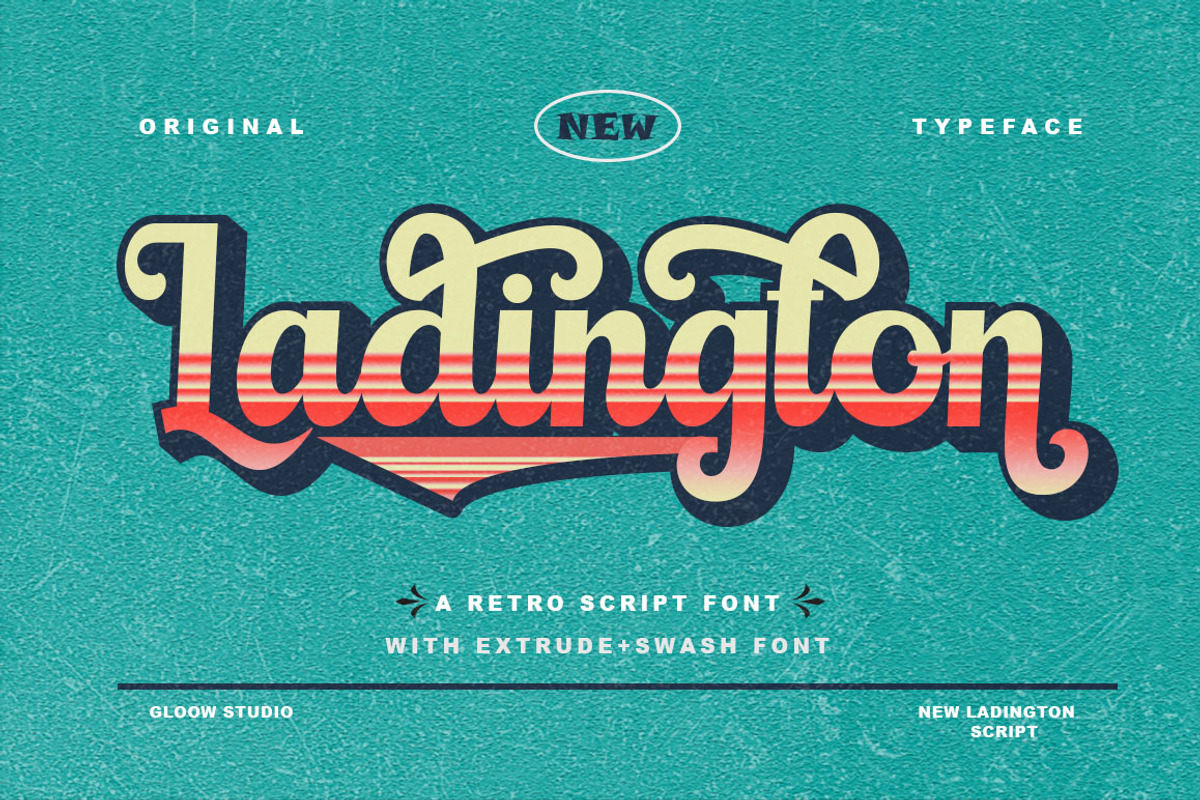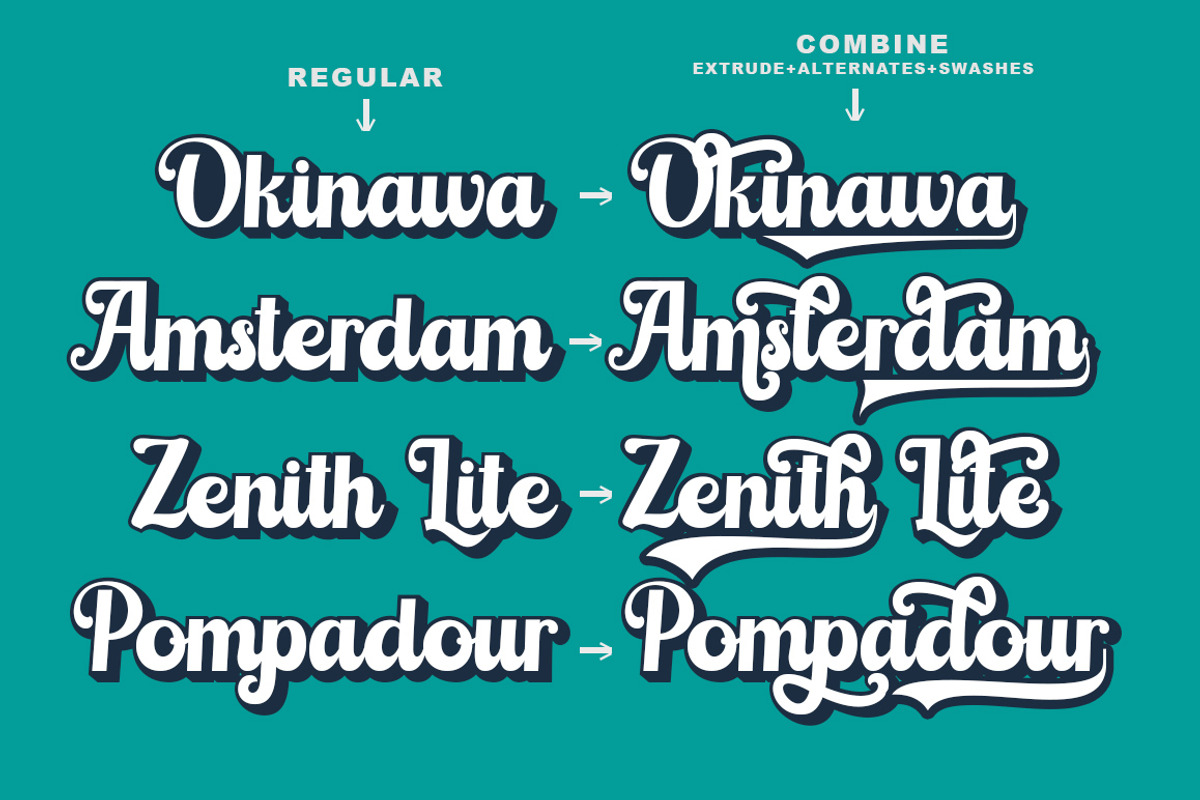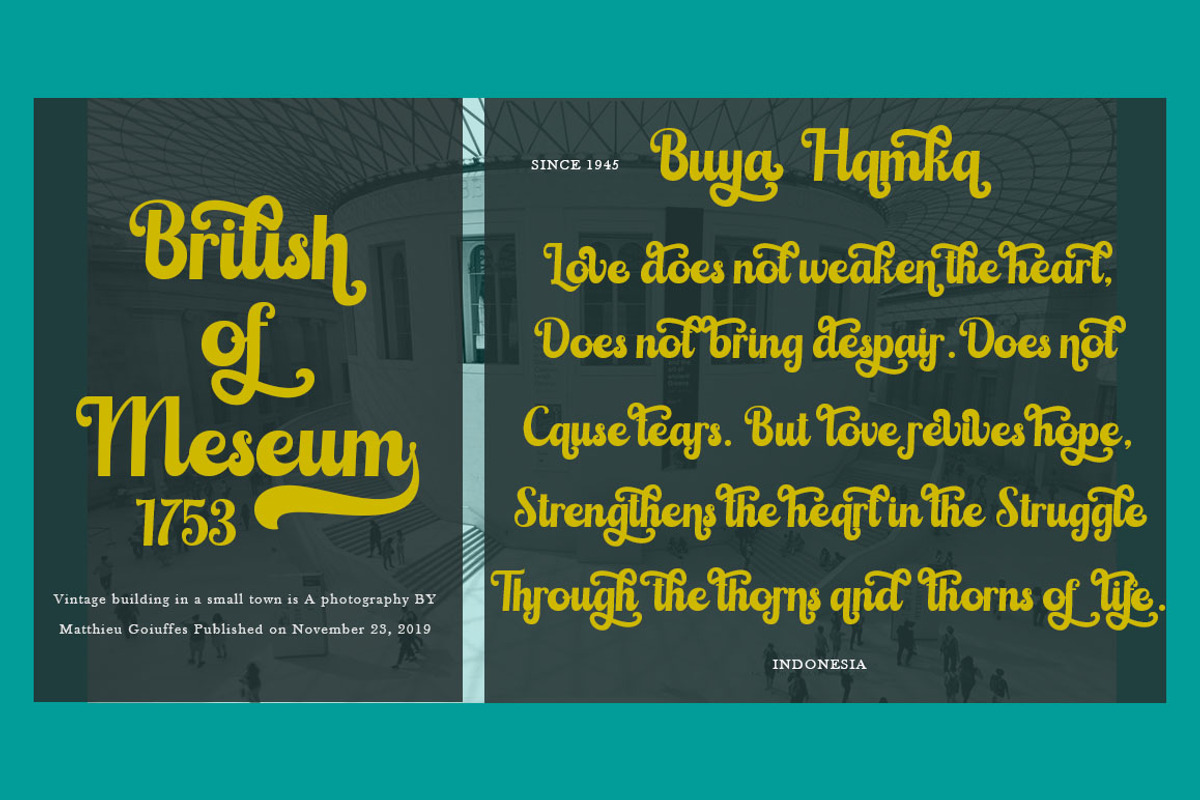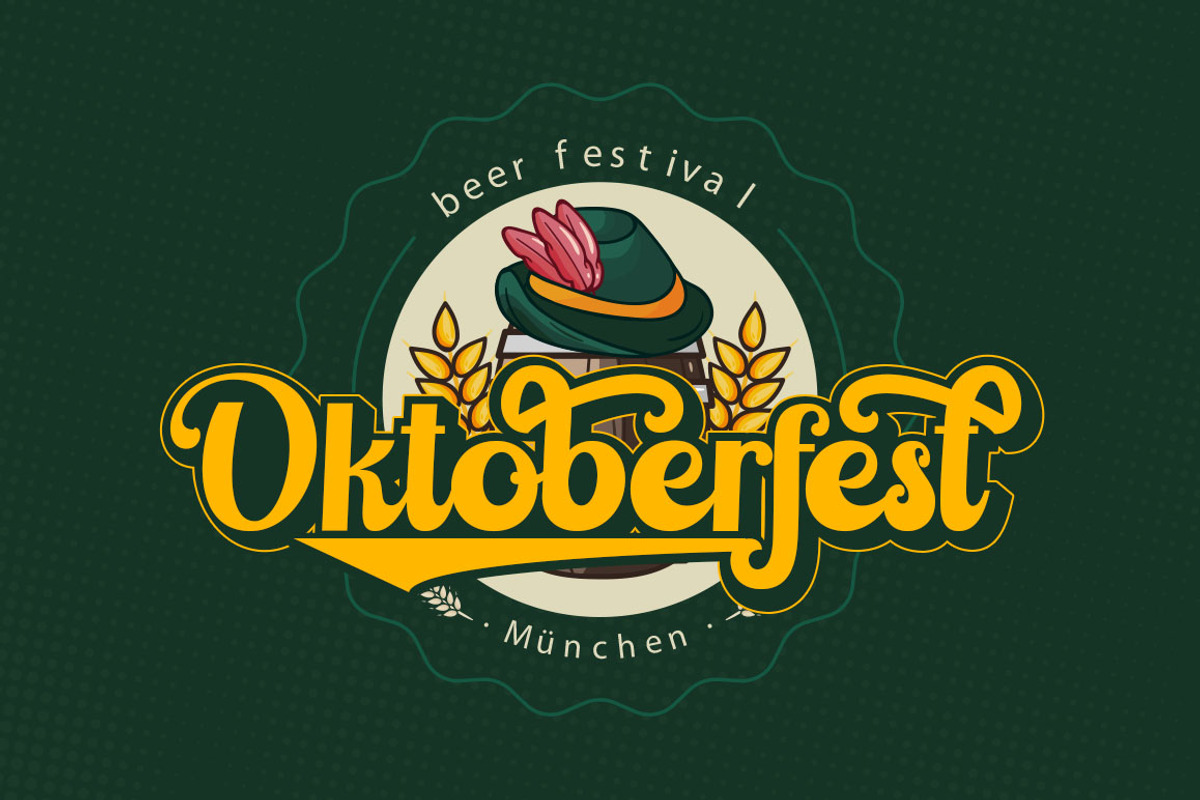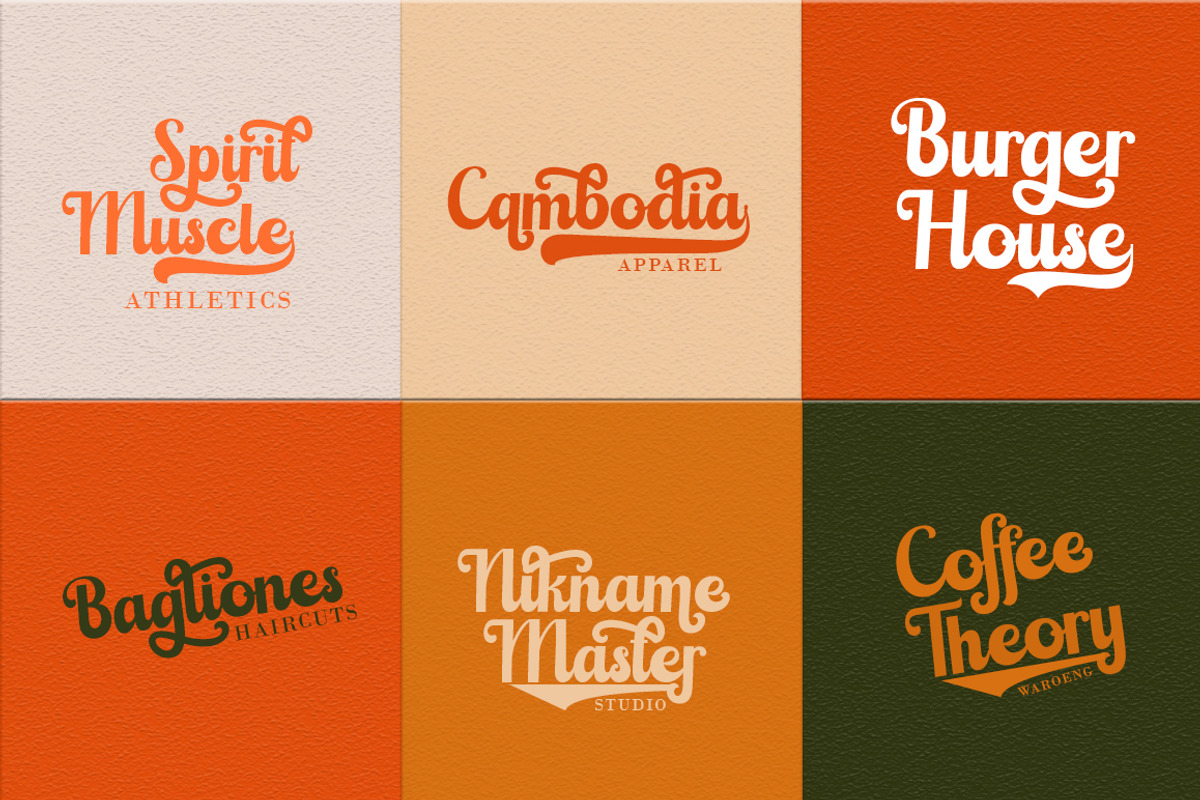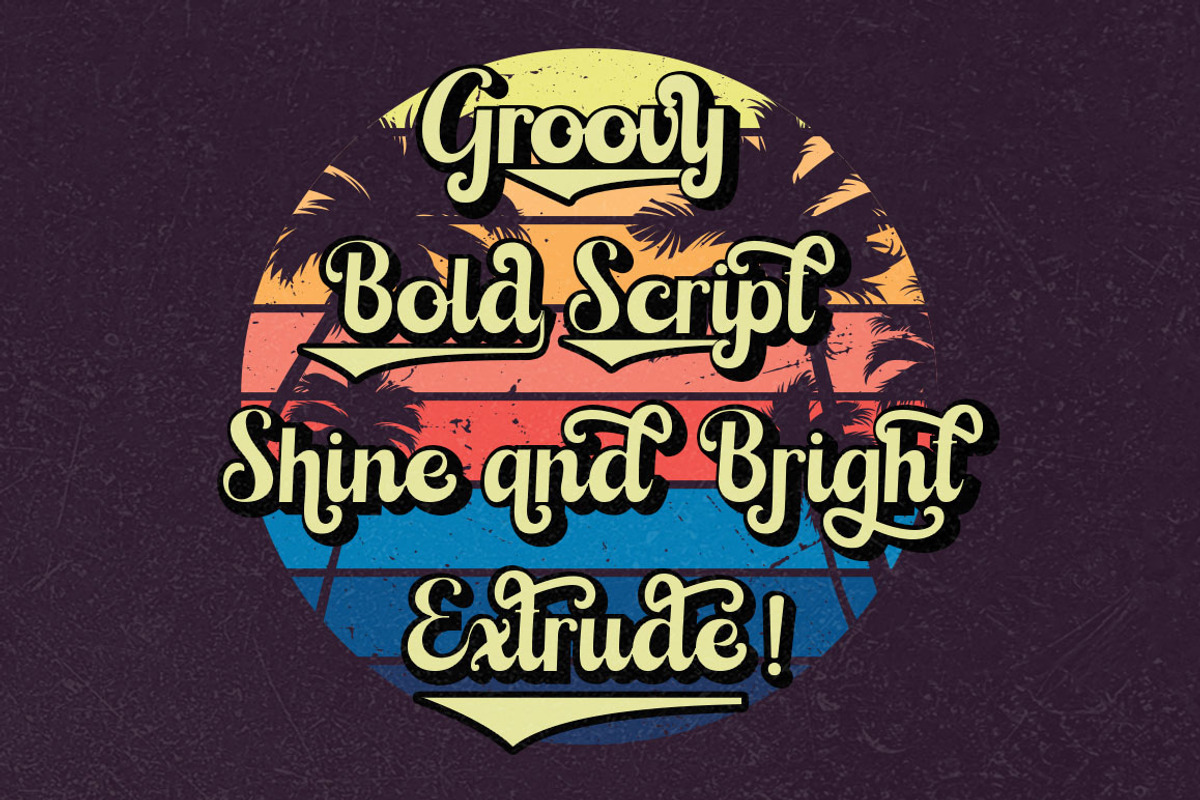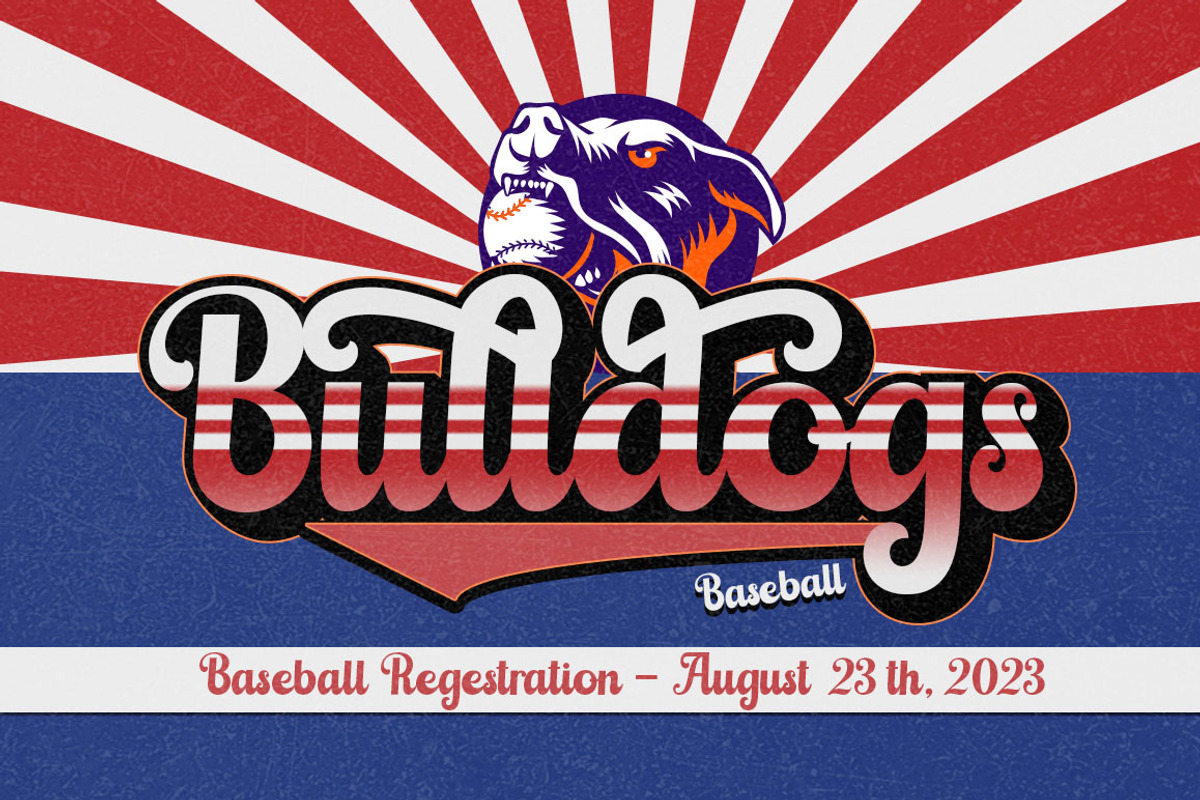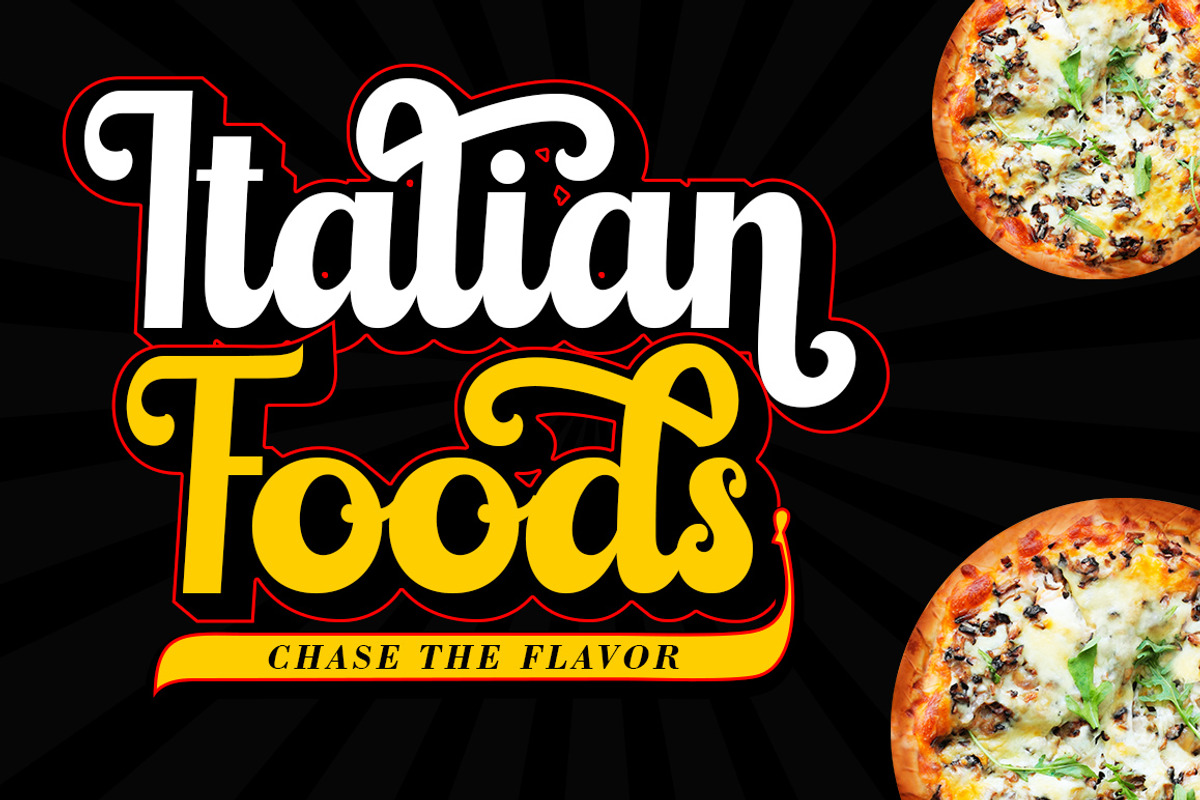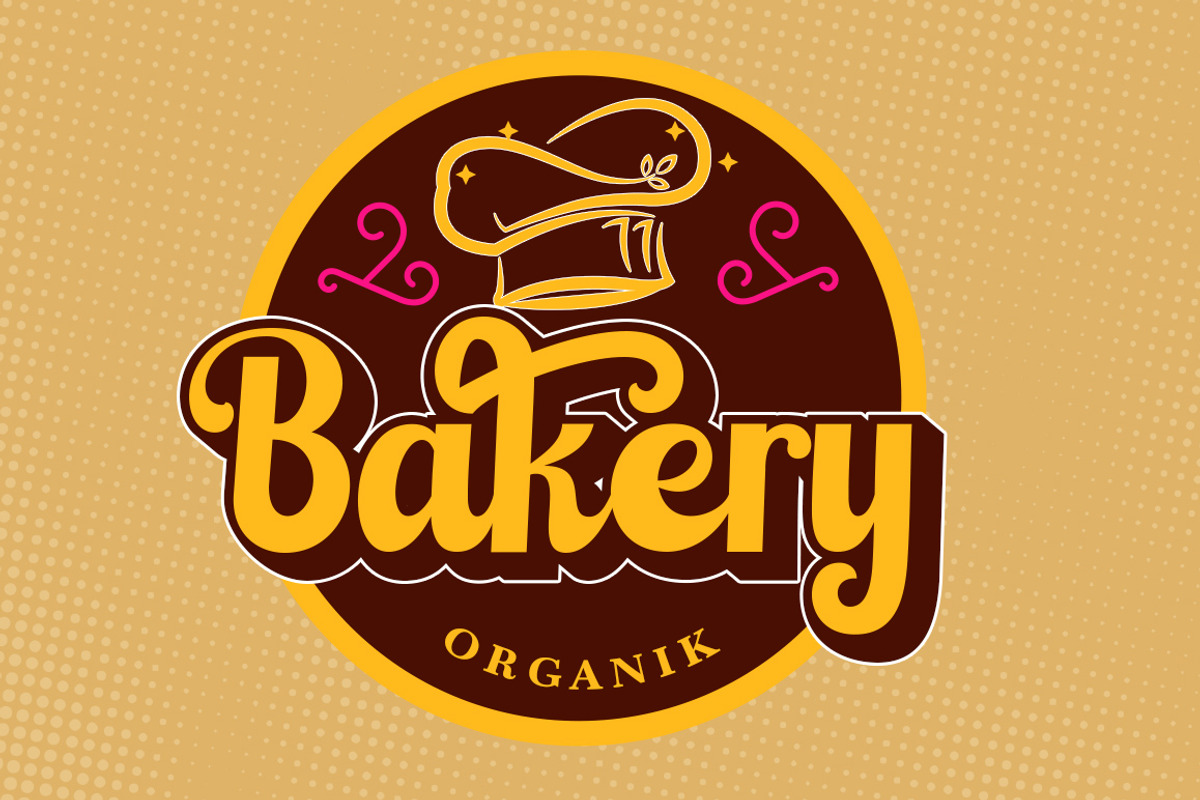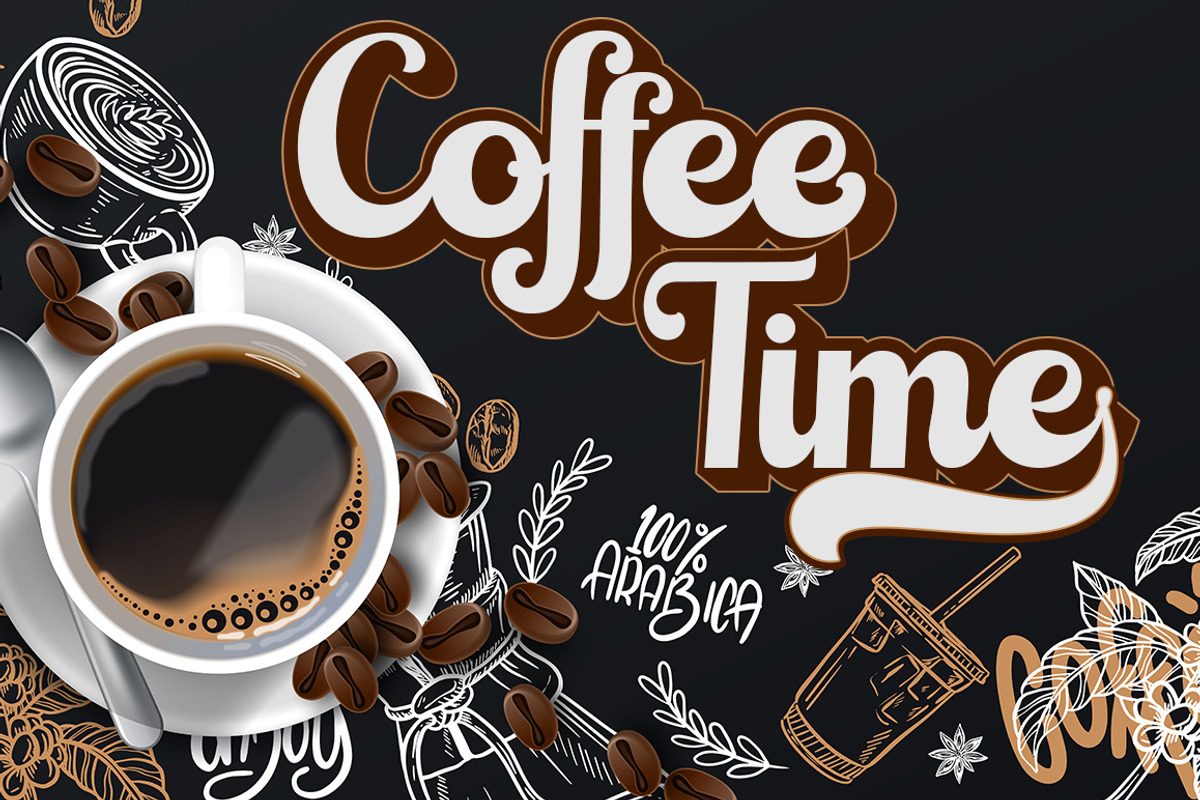
Ladington
Ladington is a retro and modern typeface inspired by 60s - 80s designs with more unique exploratory styles such as swoshes and alternative characters. This font is made from a manual sketch with lots of strokes then finished into a font. Create your design project with this font and extra illustrations to make it more beautiful. This font is also suitable for designs such as logos, stickers, t-shirt designs, banners, posters, signs, display designs, packaging and other amazing designs!
Complete Set of Uppercase & Lowercase Characters
Multilingual Language